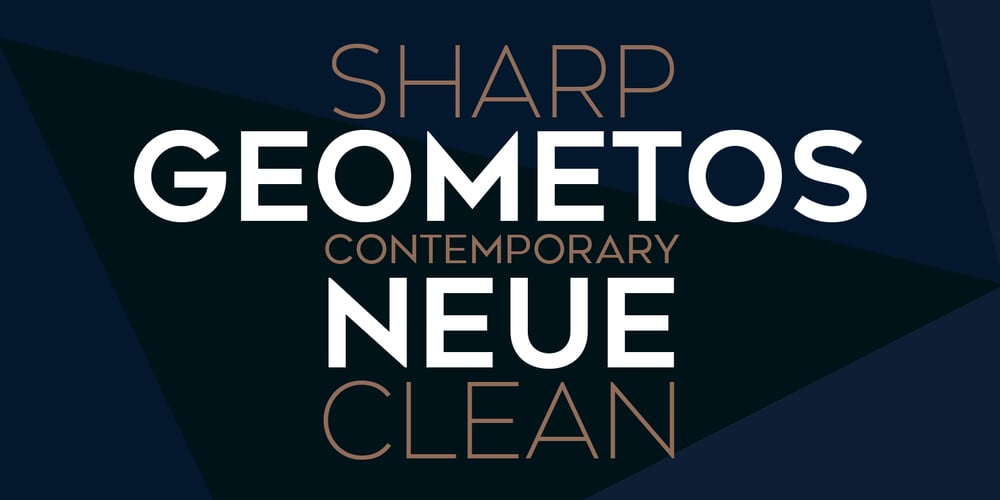
Geometos Neue
Geometos Neue font
Geometos Neue Font Family was designed by Deepak Dogra and published by Graphite. Geometos Neue contains 7 styles and family package options. Geometos Neue is a geometric sans-serif typeface which comes in seven weights. An all caps display font family, Geometos Neue has a clean, sharp and emphatic form especially suitable for headlines, headings, branding, posters, packaging, titles and logos. Also available is an updated version of Geometos Neue with lower case letters, called Geometos Max.